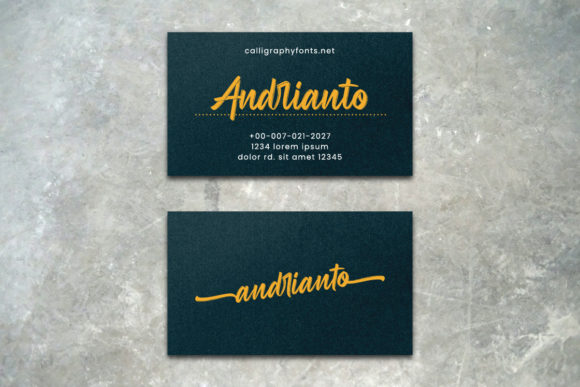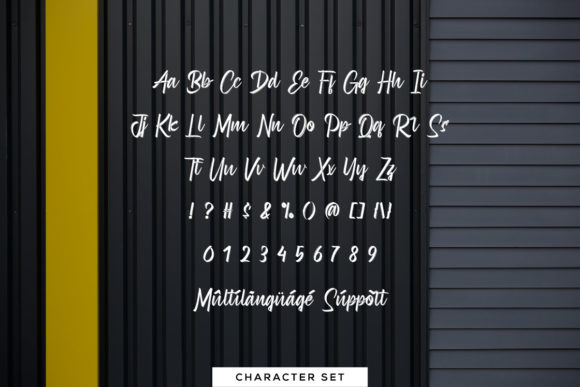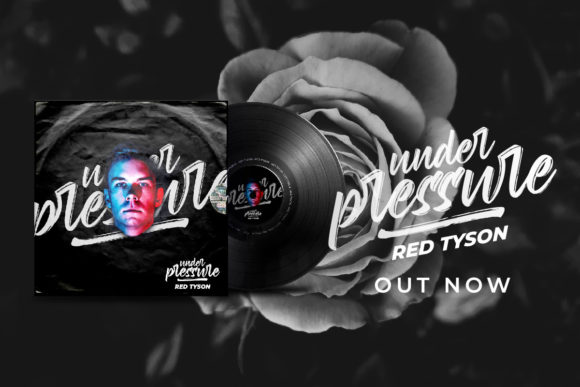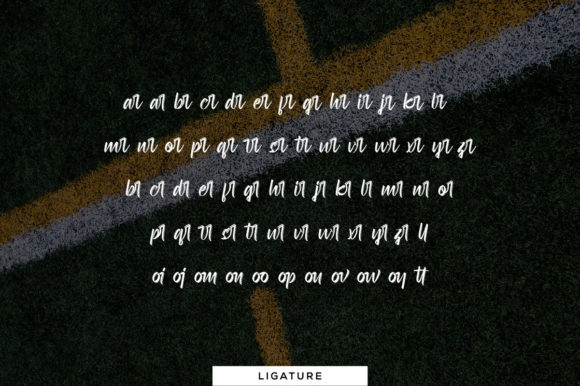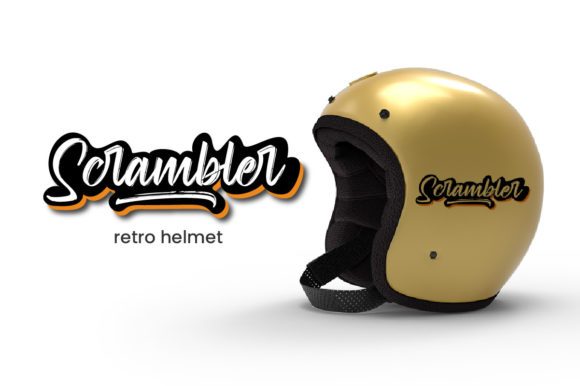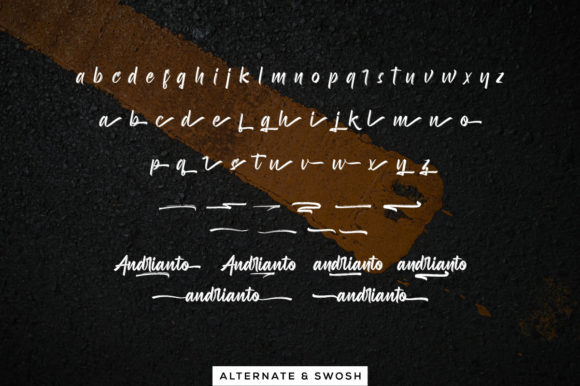
Unleash Your Creativity with the Andrianto Font
Have you ever been stuck in a design rut, searching for the perfect font to elevate your project? I know I have! It’s that moment when you’re scrolling through font libraries, and suddenly, a font catches your eye. For me, it was the Andrianto Font – a beautiful, brushed handwritten font that exudes a sense of elegance and sophistication.
The Andrianto Font is more than just a pretty face. It’s a versatile tool that can add a touch of whimsy or sophistication to any design. With its lovely flow and PUA encoding, you can access all of the glyphs and swashes with ease, making it a valuable addition to any designer’s toolkit.
Whether you’re a graphic designer, illustrator, or writer, the Andrianto Font is sure to inspire you to create something truly special. So why not give it a try and fall in love with its incredibly versatile style?
- Unique Characteristics: Andrianto Font features a unique blend of modern and traditional design elements, making it suitable for various design applications, including logos, branding, and typography.
Andrianto Font Review
Overall, I found the Andrianto font to be quite intriguing. Here are my thoughts on its strengths and weaknesses.
- Unique aesthetic: The Andrianto font has a distinctive and modern feel to it, which could be perfect for designers looking to create a unique visual identity.
- High-quality rendering: The font is well-rendered, making it suitable for both digital and print applications.
- Extensive character set: Andrianto includes a wide range of characters, including Latin, Cyrillic, and Greek scripts, making it versatile for various languages.
- Limited font weights: The Andrianto font only comes in a few weights, which might limit its use in certain design scenarios.
- Not ideal for body text: The font’s unique style might not be suitable for large blocks of text, making it better suited for headings and titles.
- Compatibility issues: Some users may experience compatibility issues with certain software or operating systems, which could be a concern for designers who need to ensure cross-platform compatibility.
In conclusion, the Andrianto font is a great choice for designers who want to add a touch of modernity and uniqueness to their projects. However, it may not be the best option for body text or projects that require a wide range of font weights. With some careful consideration of its limitations, the Andrianto font can be a valuable addition to any designer’s toolkit.
The Andrianto Font is suitable for various design projects, including:
- Print materials, such as business cards and brochures
- Digital designs, such as website headers and social media graphics